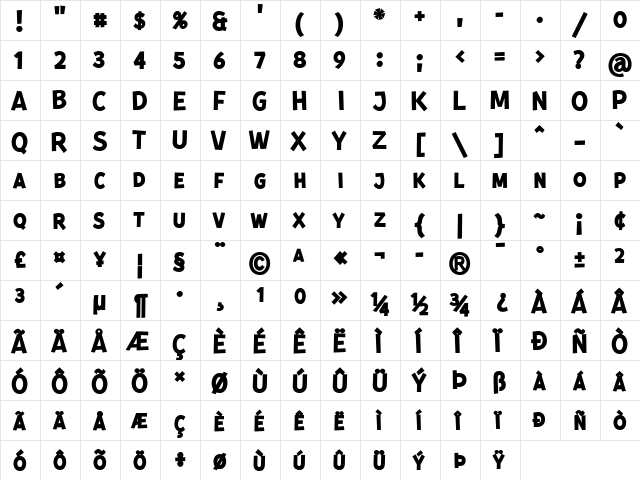
Kurri Island Caps Bold
Design Context for Kurri Island Caps Typeface
Kurri Island Caps offers clean, dependable letterforms without strong stylistic allegiance, making it a practical choice for designers who need flexibility. The heavy weight commands attention and anchors typographic hierarchies.
Pro Tip: Use Kurri Island Caps in both headline and body roles to test its range before committing to a single application.